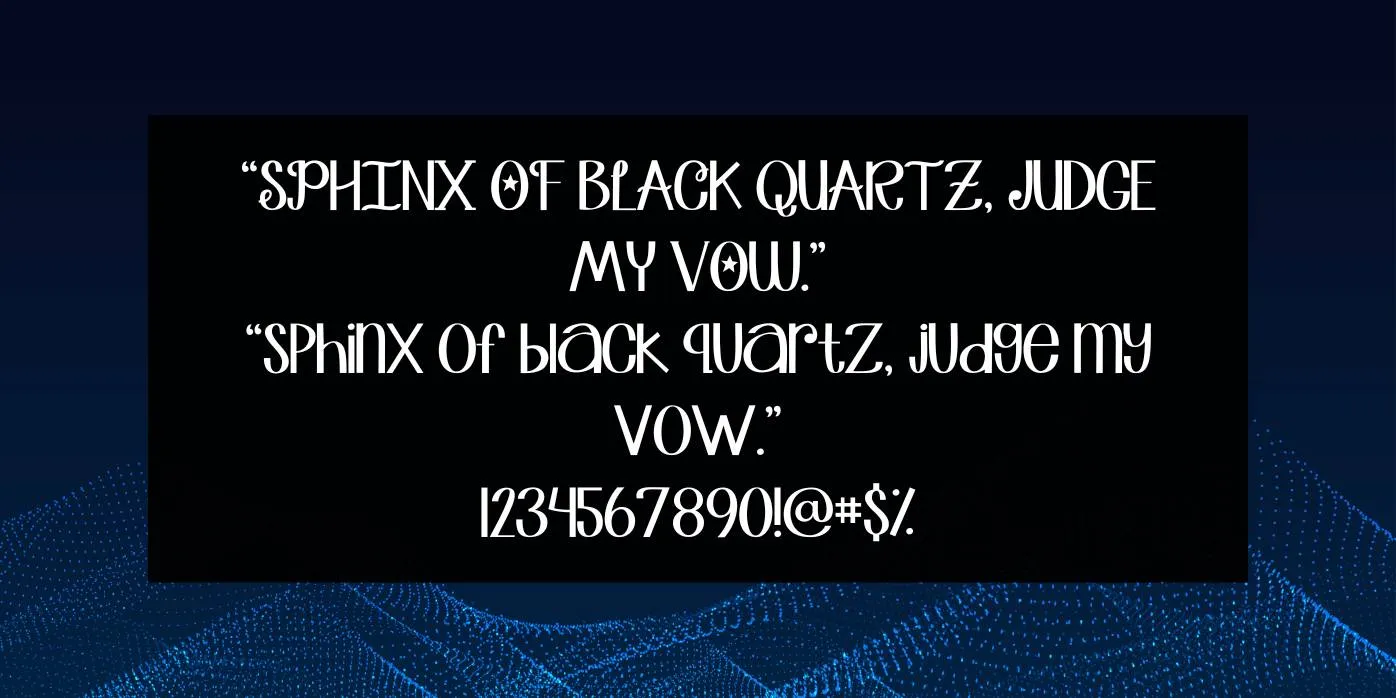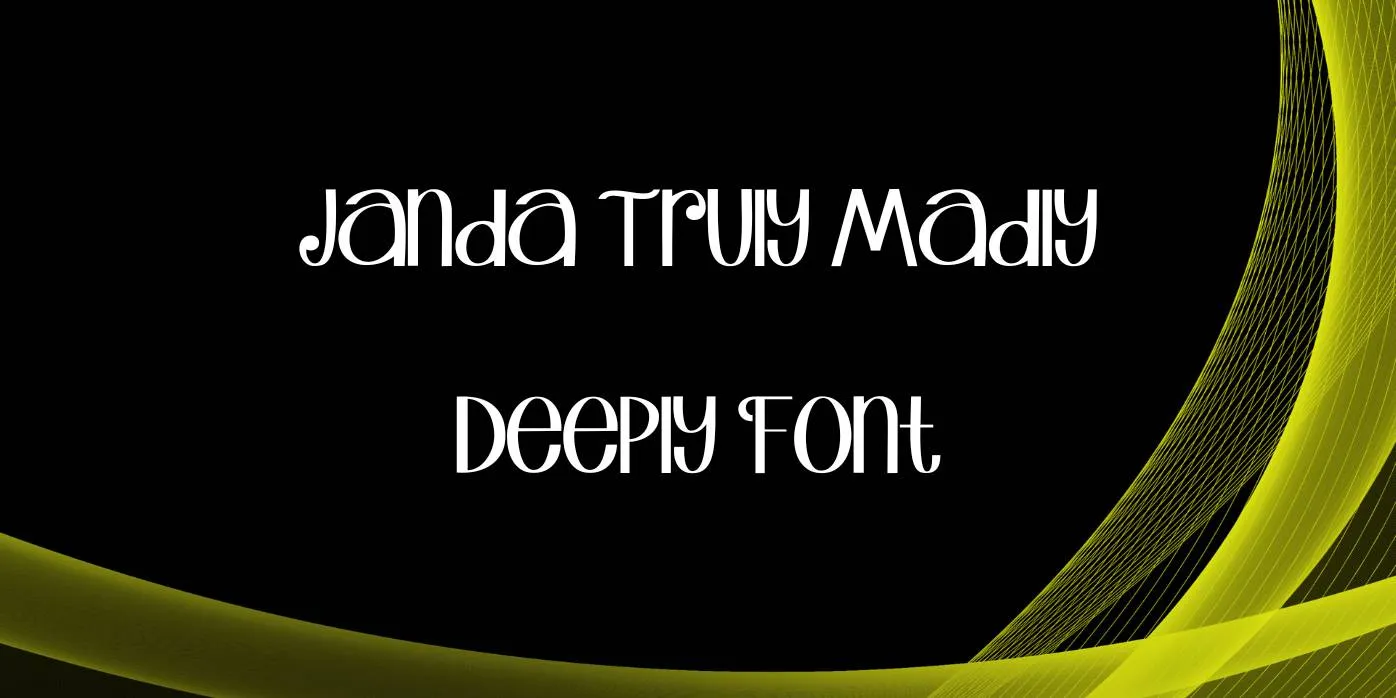
Janda Truly Madly Deeply Font
Here we discuss detailed information about Janda Truly Madly Deeply Font. It is a very playful font. It was designed by Kimberly Geswien in 2012. You can make so many different funky projects using this font personal or commercial type.
But you need to pay for commercial projects. It contains 341 characters, 337 glyphs, and 1024 units per Em. An online generator tool also supports it to change your simple design into a stylish look without downloading the font. Embedding rights are allowed for permanent installation.
The weight of the font is Semi-Bold and its width is condensed. Its pattern nature is regular. This wonderful typeface supports two file formats TTF and OTF. You can download it on many devices such as Windows, Mac, and Android.
This font has also the best pairing features with other fonts like trumpit font to give ey-cathing looks to your projects. Usage Because of its mono-height look, you can make so many projects with a nice space. It has many features like characters, small letters, capital letters, numbers, special characters, and punctuation. You can make stylish headlines by using it.
Logos of any brand can also be made by using this typeface. This stunning font is used for making different types of banners, posters, flyers, and titles of movies and TV shows. To make storybook covers and magazine covers it can also be used. This is a playful font and can be used for making kids-related items.
It is a very unique and stylish font with mono-height features. You can make logos, banners, flyers, and kids-related items easily. Who is the developer of Janda Truly Madly Deeply Font? It is a very unique and stylish font.
It was designed by Kimberly Geswien in 2012. You can make stunning designs by using this font.